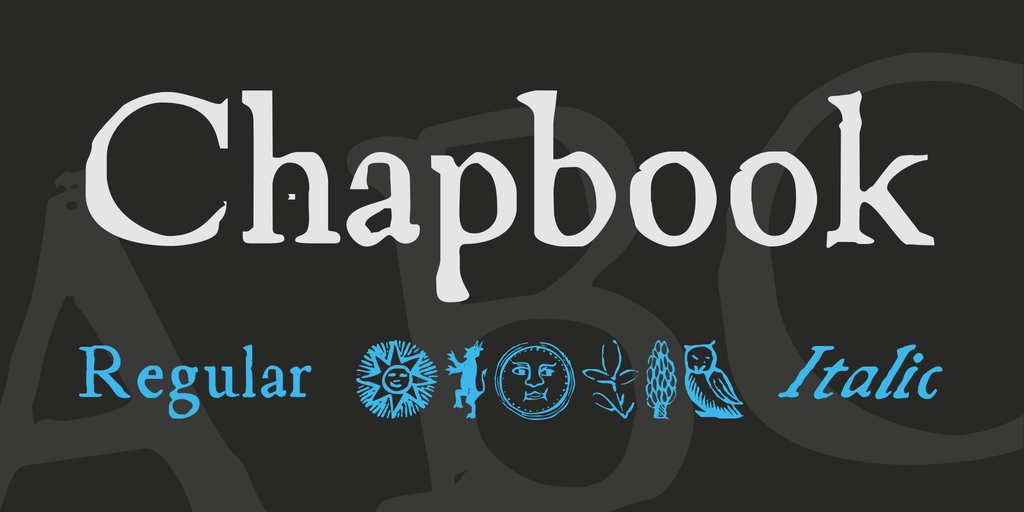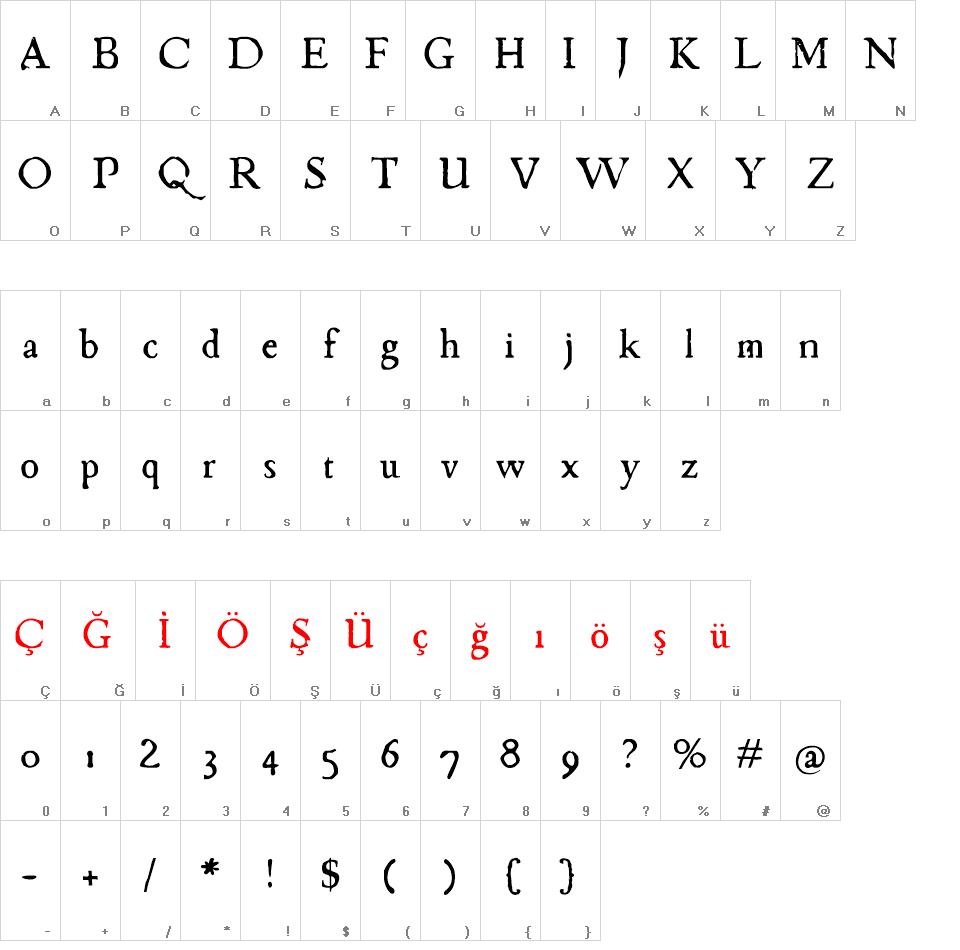
Chapbook is based on typefaces found in publications during the mid-seventeenth century.
Version 4 has OpenType features that work in applications that support them. The period ligatures can be inserted automatically by turning on Contextual Alternatives, and Stylistic Set ss01 inserts the long s where appropriate. Small caps have also been added. As the Italic upper case letters are not suitable for this, the italic small caps are based on the regular ones. There is also a basic Greek alphabet.